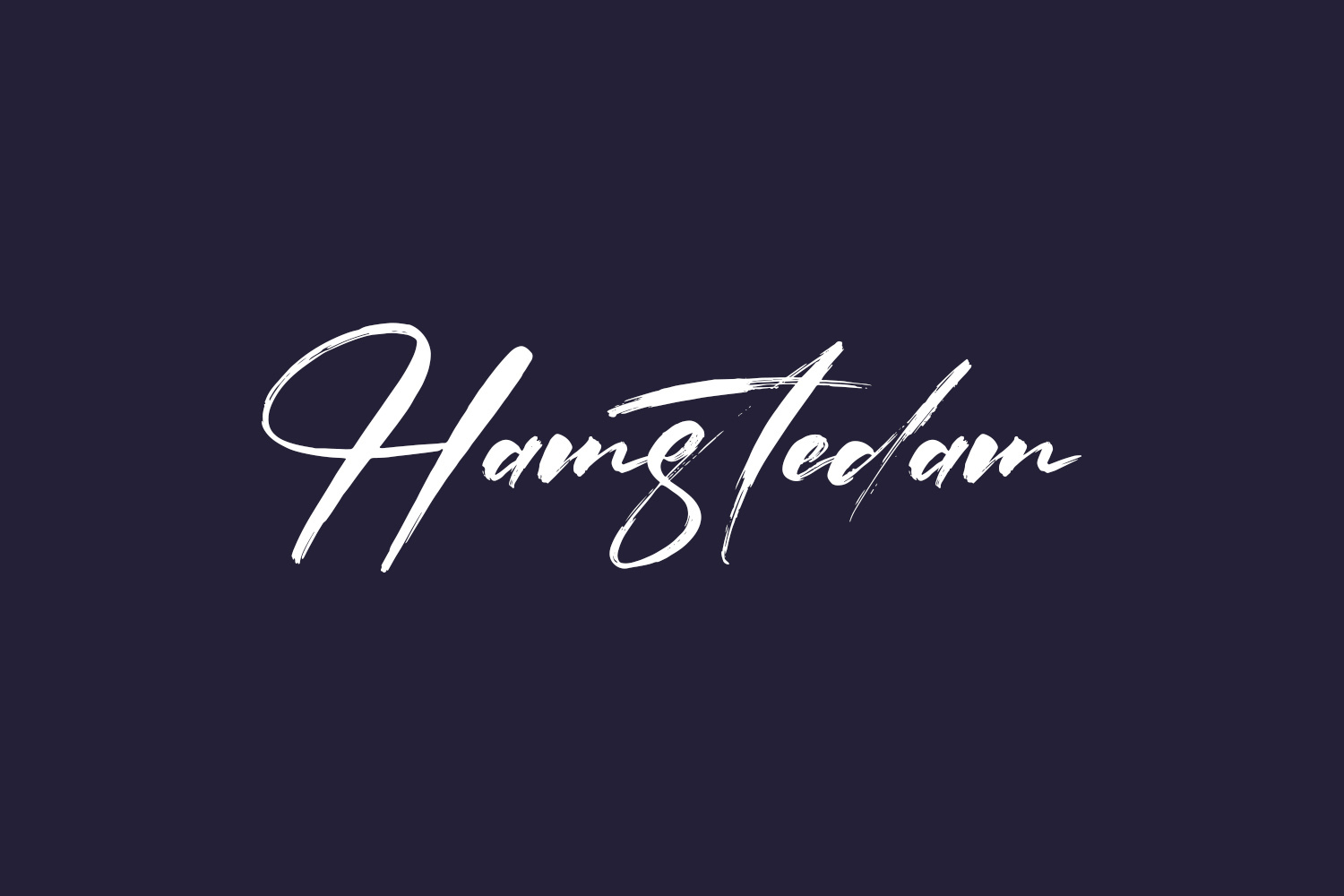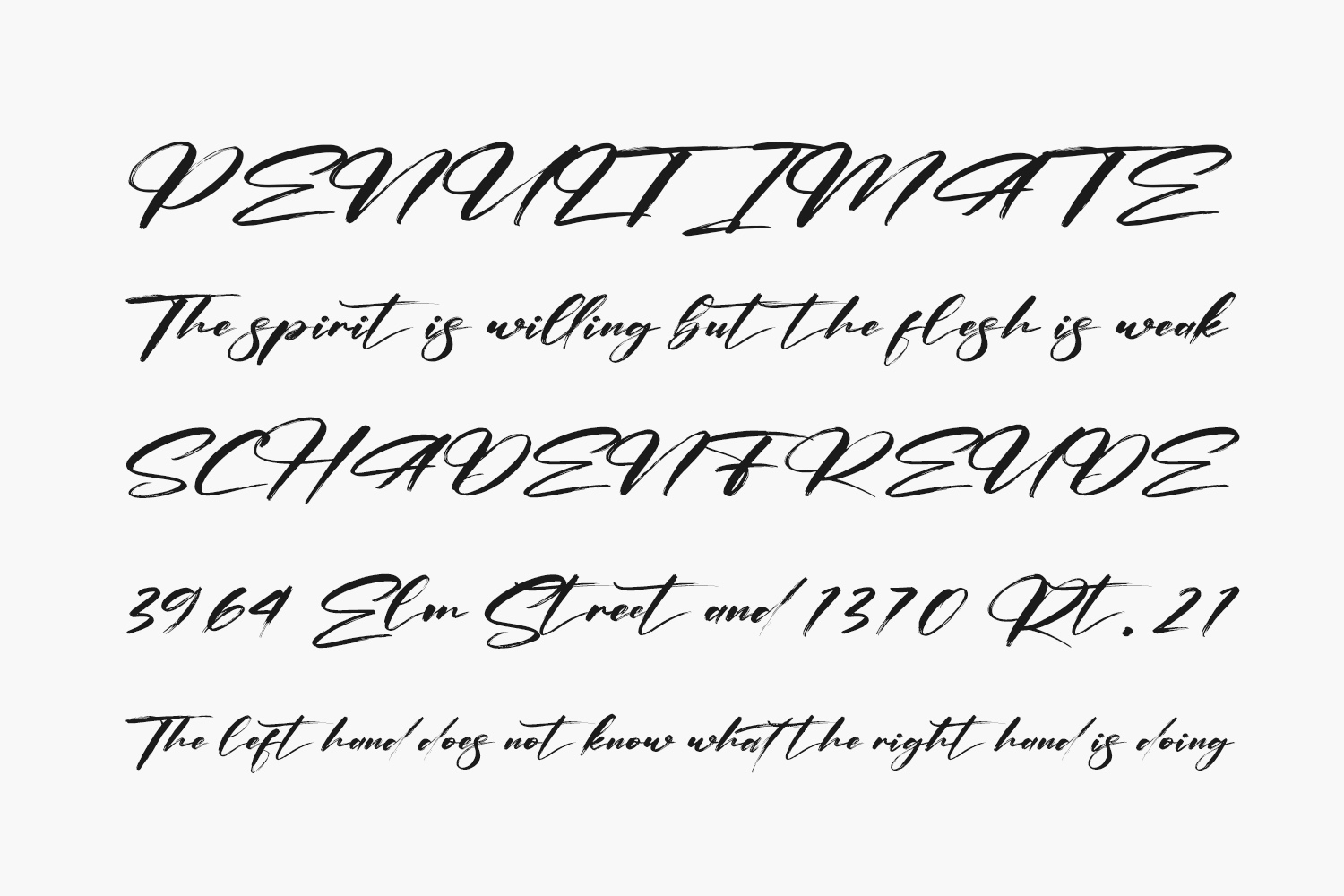
Hamstedam Free Font is a lovely and delicate script font that exudes elegance and class. This font was particularly crafted for those who need a beautiful and refreshing look to their designs. Hamstedam Free Font was designed by Letterena Studios and is free for personal use only. Please purchase the full version for commercial use.